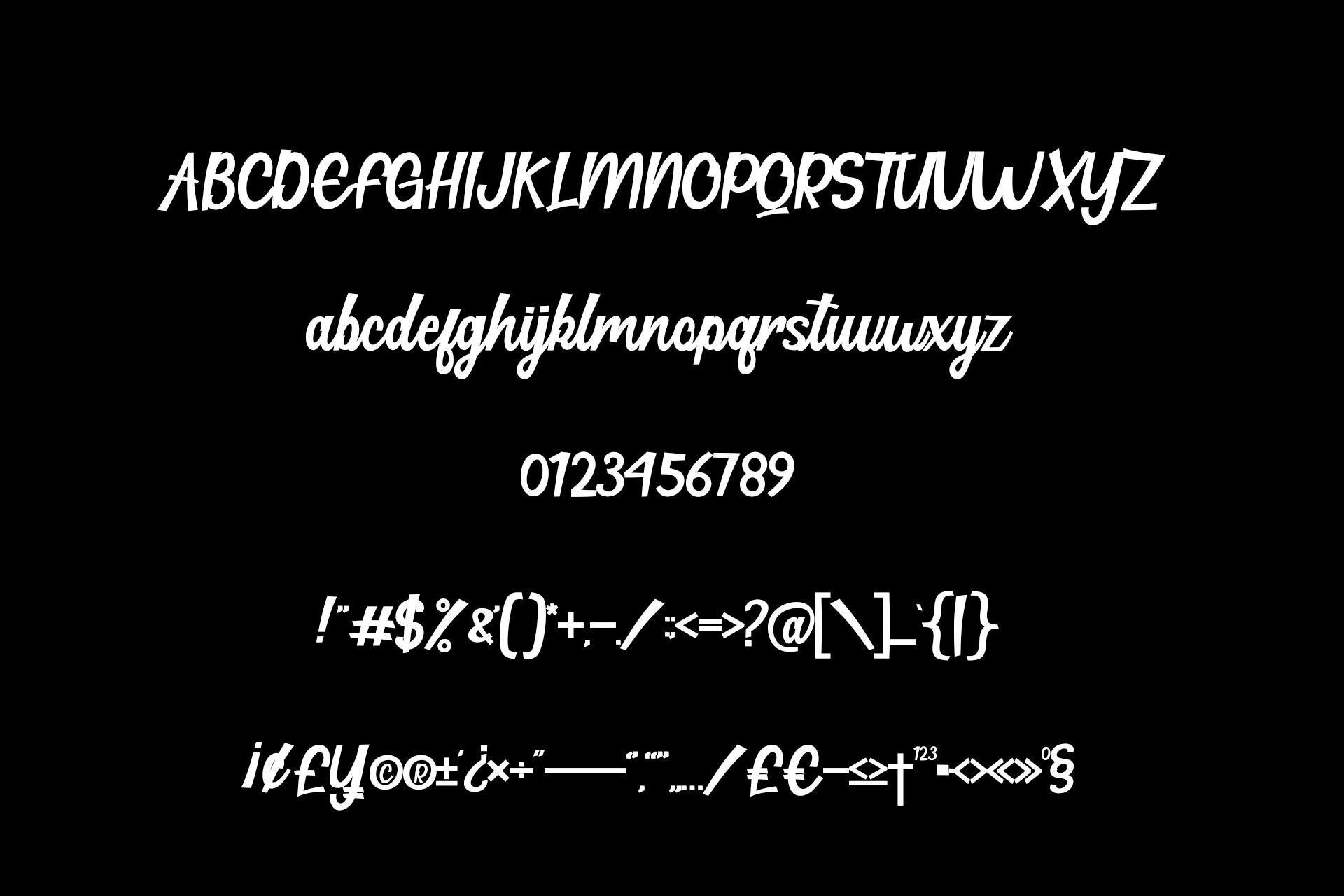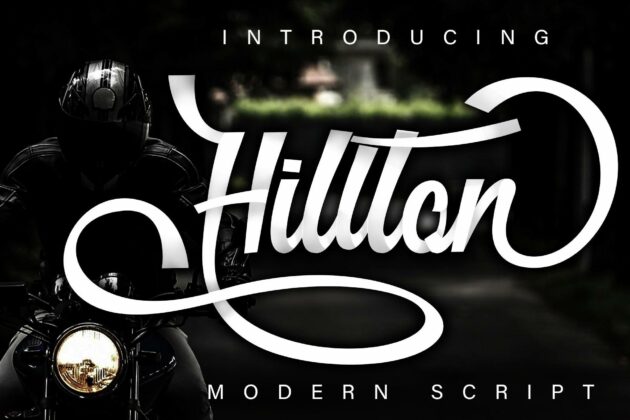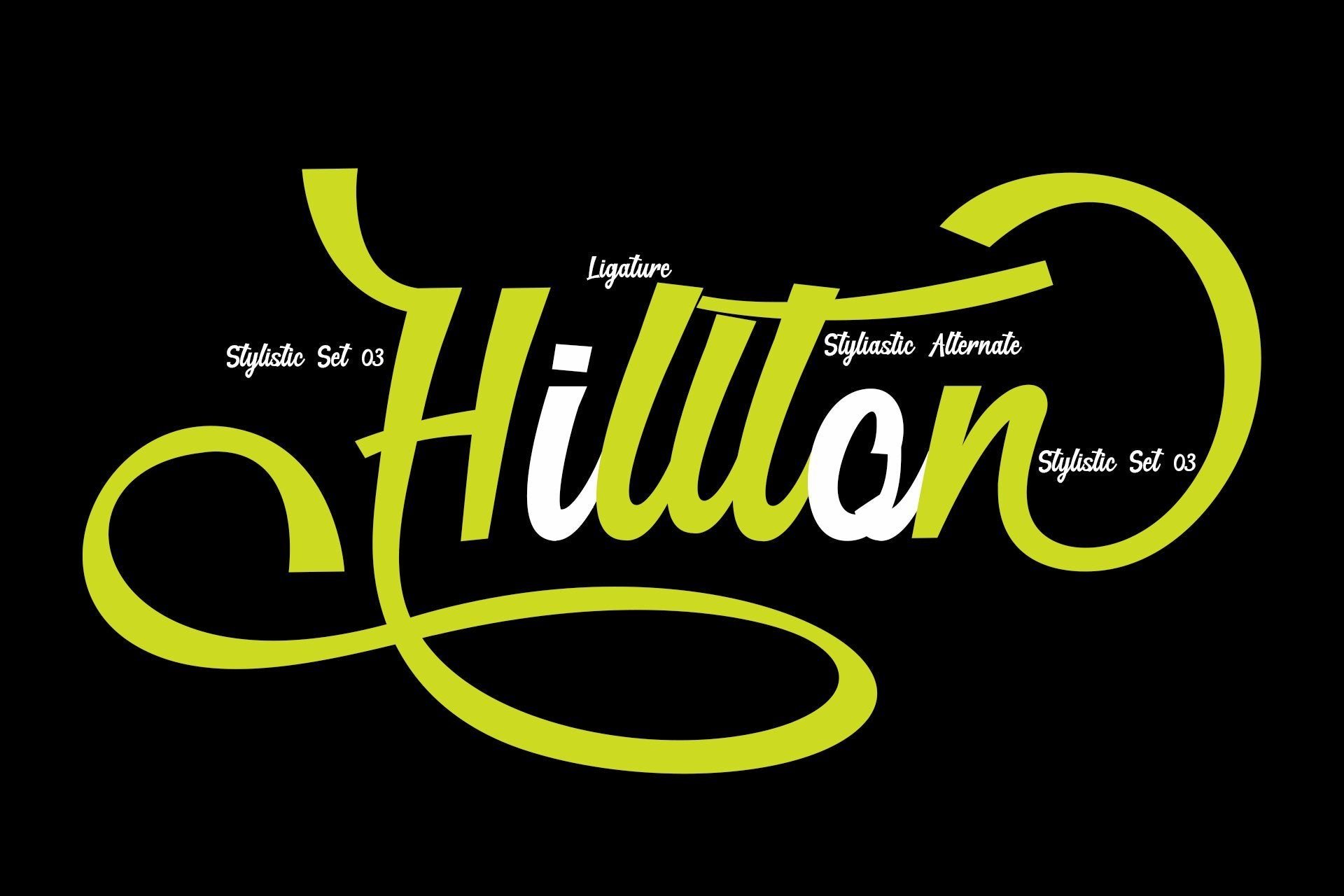
Hillton is a beautiful modern script font with an alternative blend of more than 150 alternet (opentype) features suitable to support your design, for business, company, brands, clothes, books, and more **What’s include:** Hillton Script Otf\ Hillton Script Ttf\ Ligature\ Stylistic alternate for lowercase and uppercase\ Stylistic set for Ending\ PUA Encoded Characters – Fully accessible without additional design software.\ Basic Latin Language Support (AÀÁÂÃÄÅCÇDÐEÈÉÊËIÌÍÎÏÑOØÒÓÔÕÖUÙÜÚÛWYÝŸÆß ) How to access alternate glyphs? you can see it on this link ( http://goo.gl/1vy2fv )